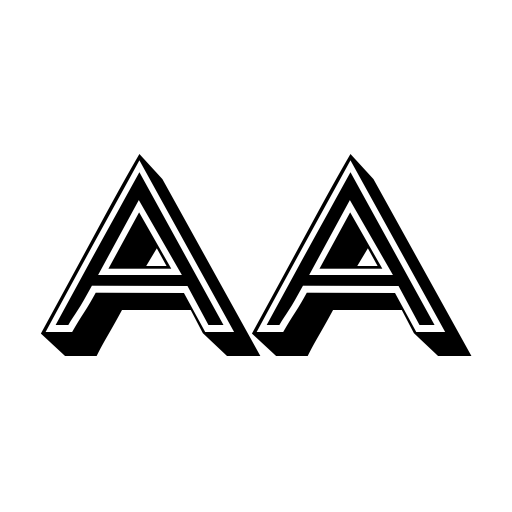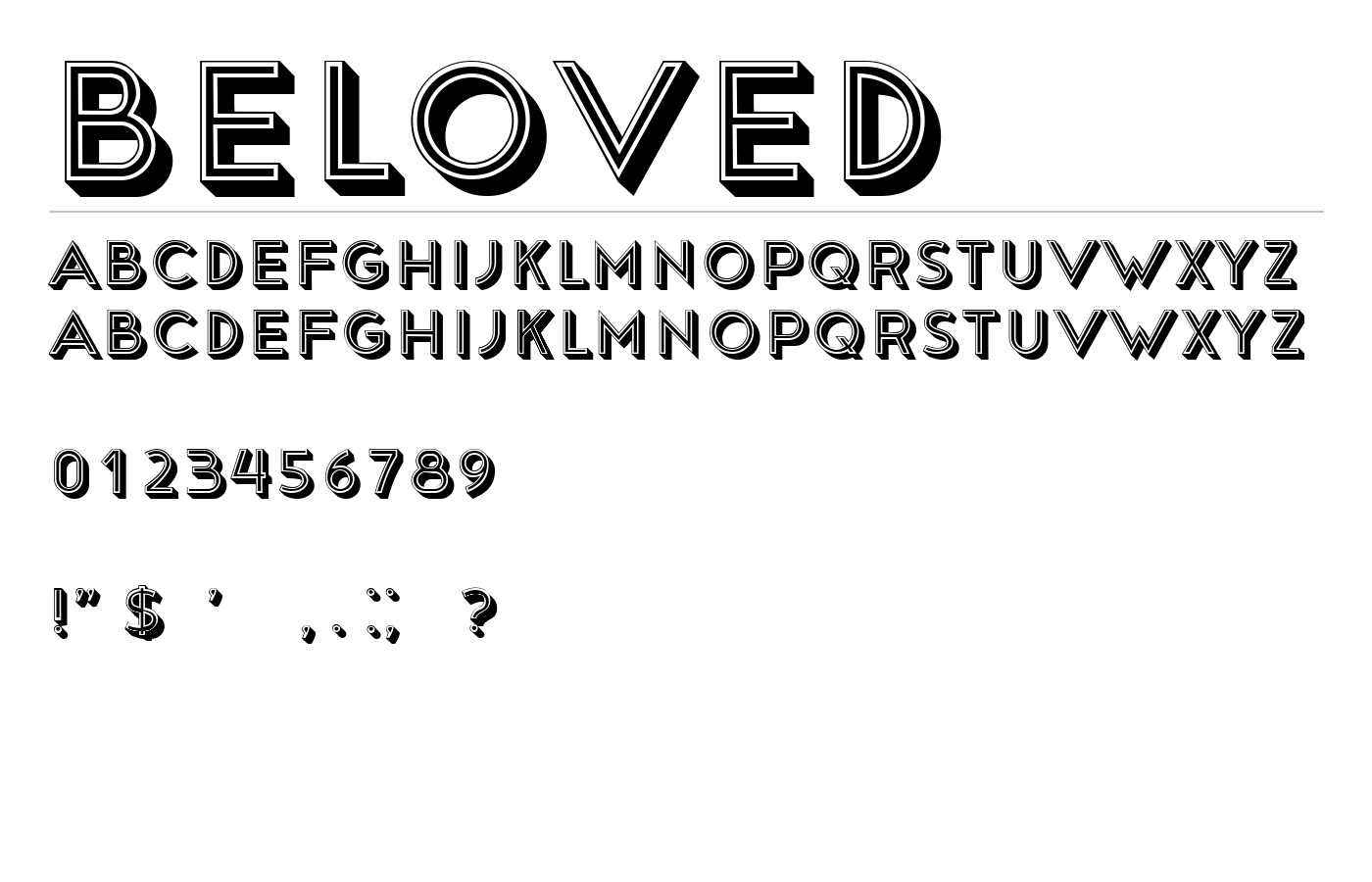
Beloved Font is a bold, decorative sans serif typeface with a striking three-dimensional shadow effect that gives it a vintage and playful character. Its tall, geometric letterforms with clean lines and layered shading work wonderfully for eye-catching headlines, logos, and packaging where a lively and nostalgic feel is desired. This font excels in designs that need a strong personality and retro charm, making it perfect for branding and display uses.
Beloved Font
About Beloved Font